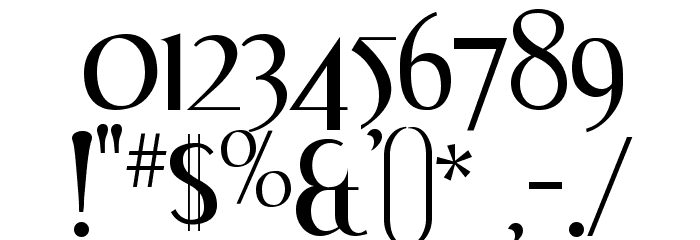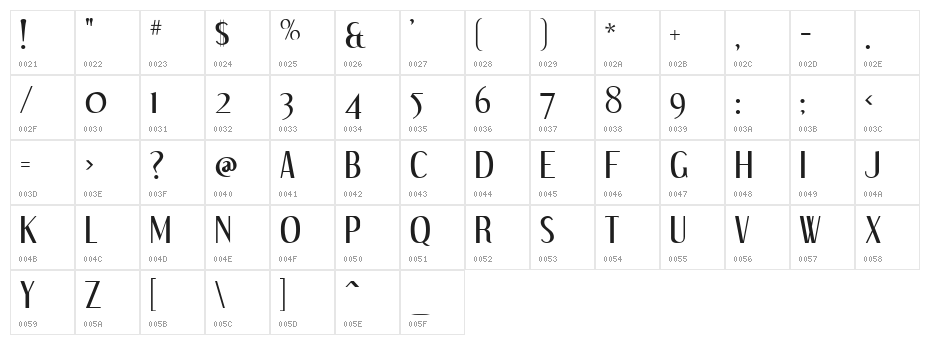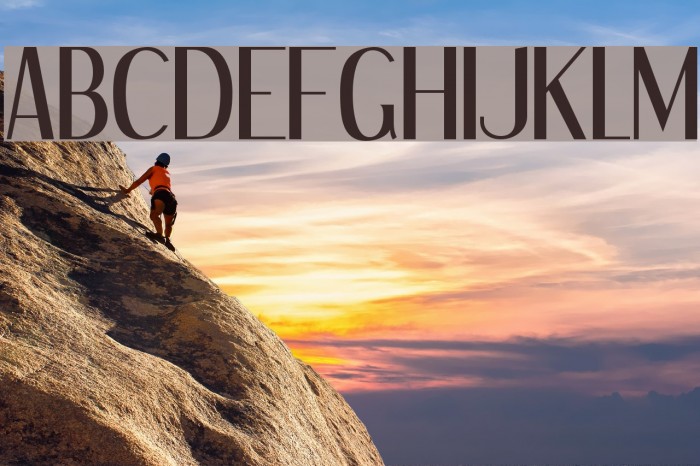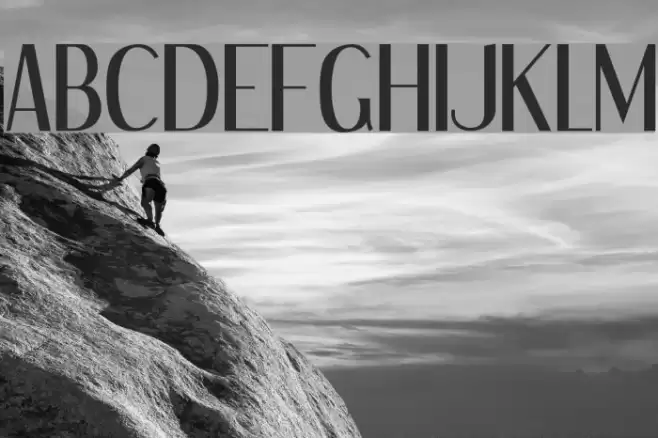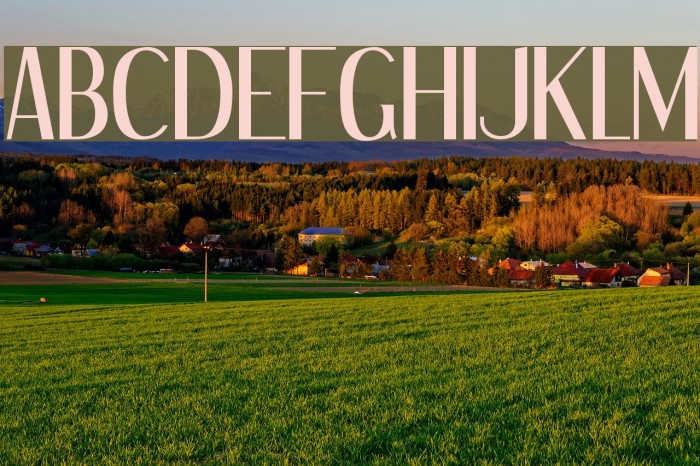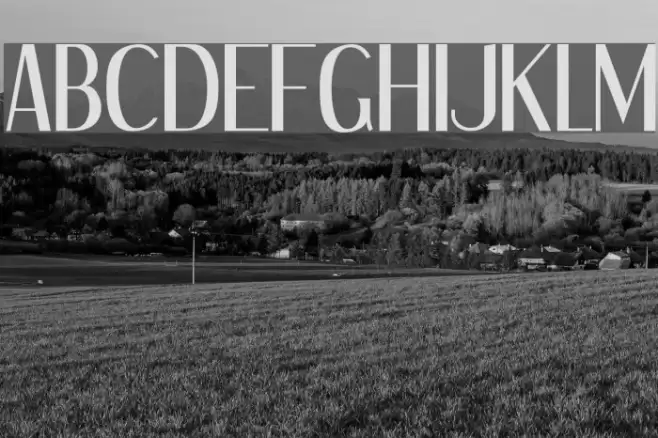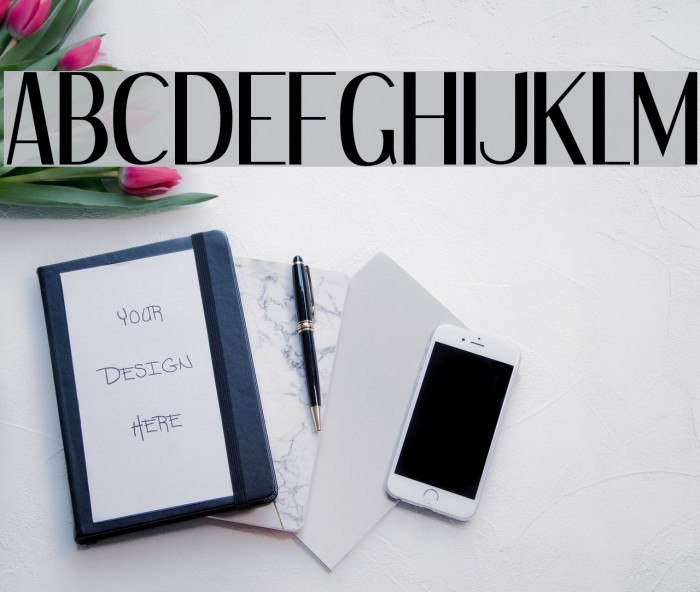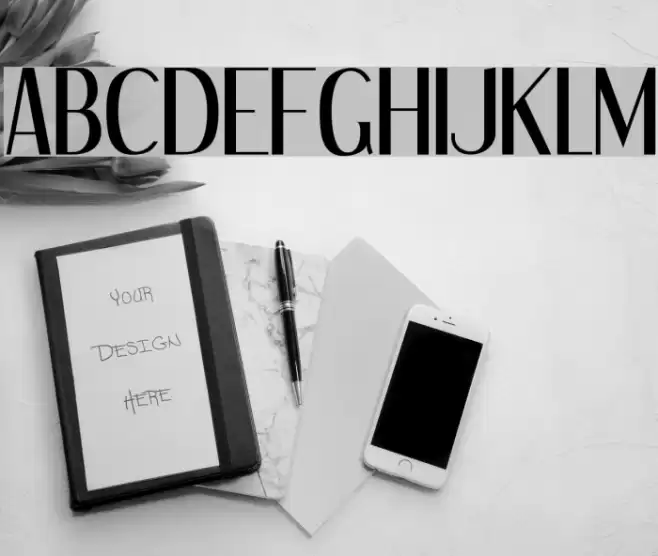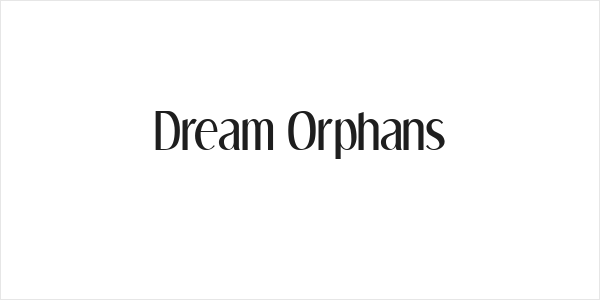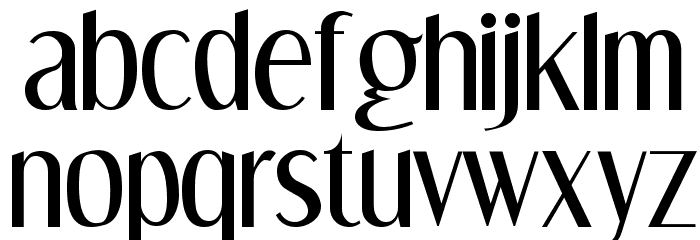
Dream Orphans Font
Dream Orphans Description
This font features a modern and elegant design with a distinct flair. The uppercase letters are tall and slightly condensed, giving a sophisticated appearance. The lowercase letters maintain a consistent style with unique curves, particularly noticeable in characters like 'g' and 'y'. The numerals are stylish and align well with the overall aesthetic, while the special characters are crafted to complement the letterforms. The font's clean lines and subtle variations in stroke width add to its contemporary feel, making it versatile for various design applications.